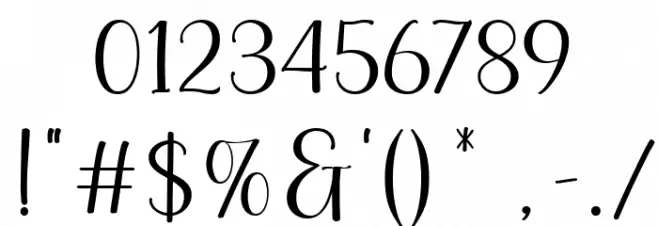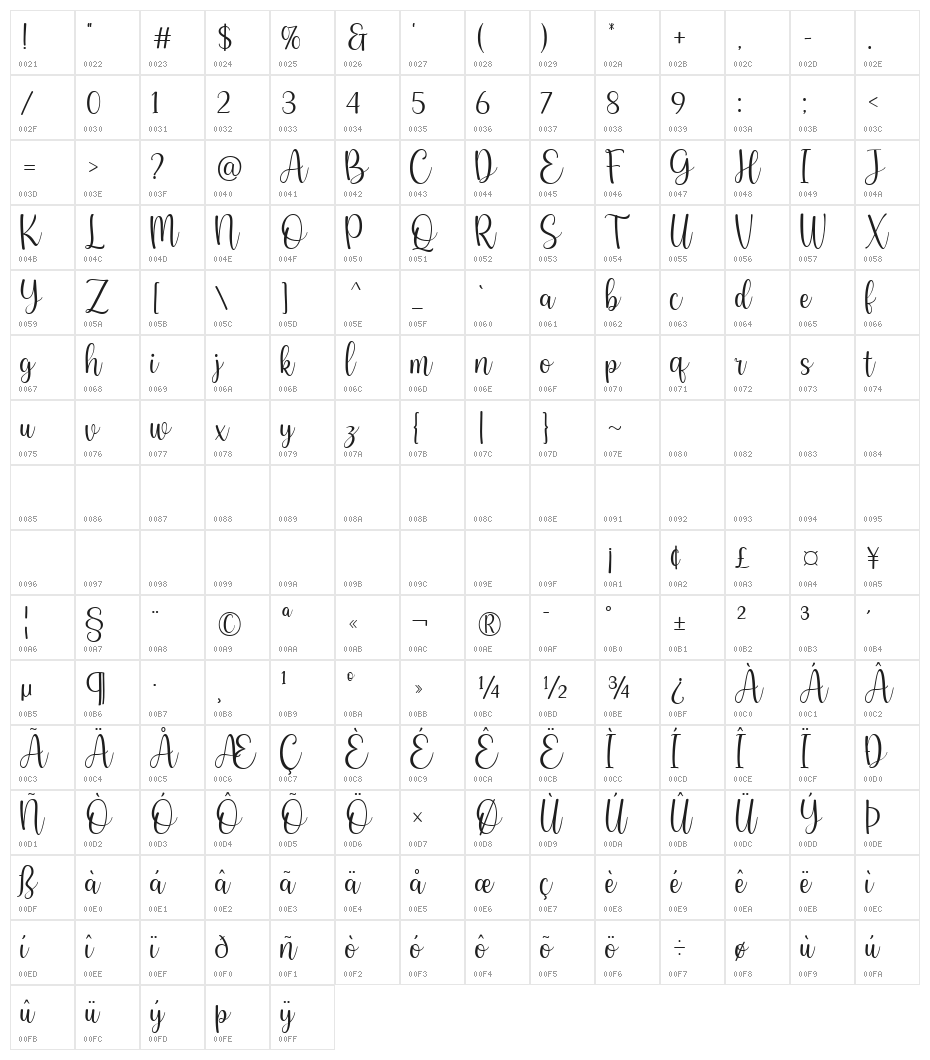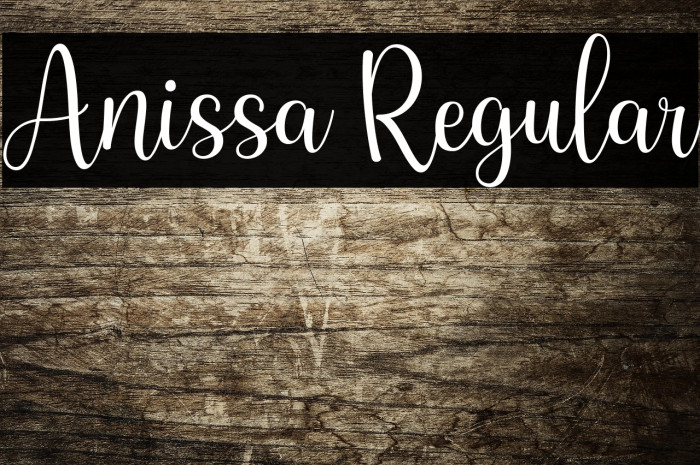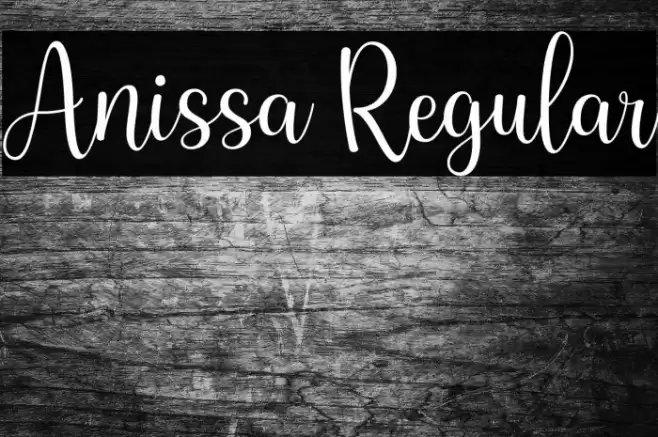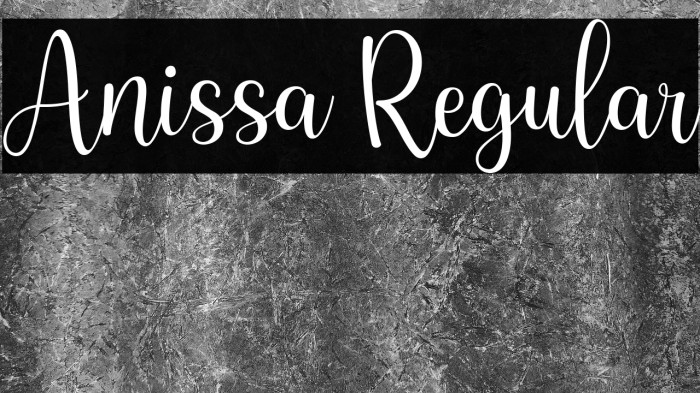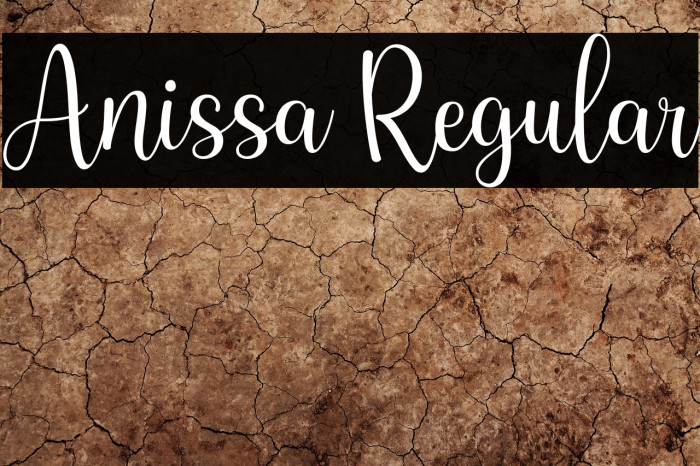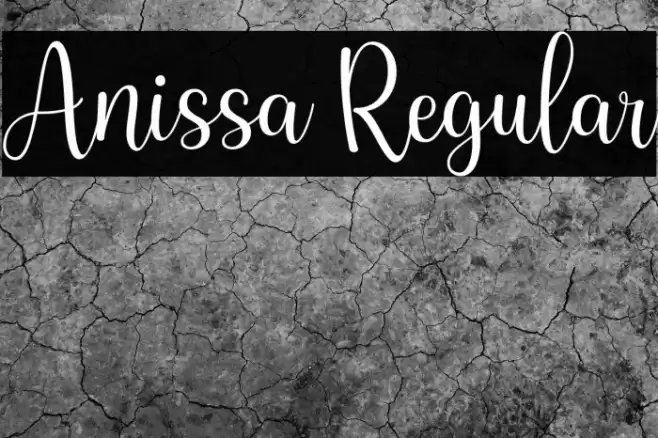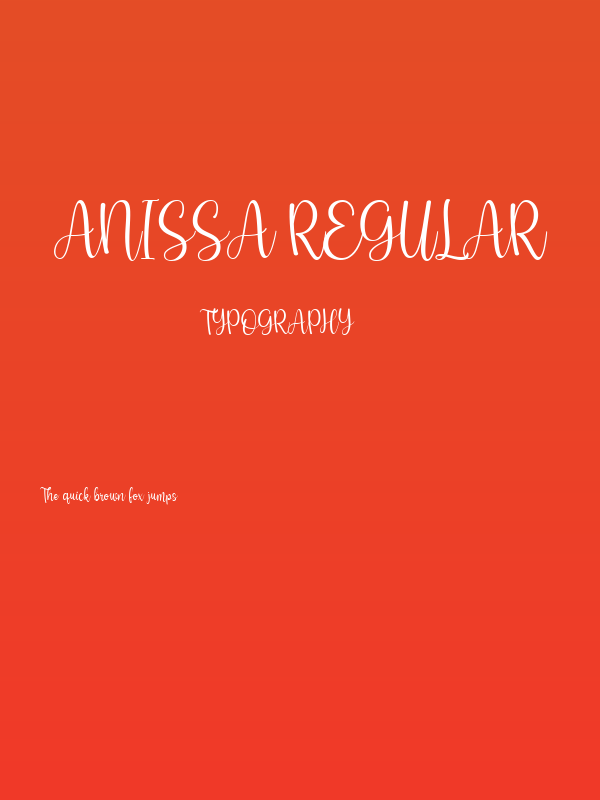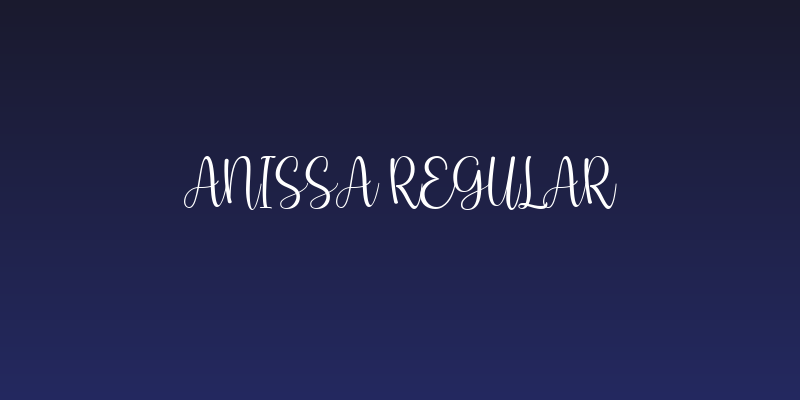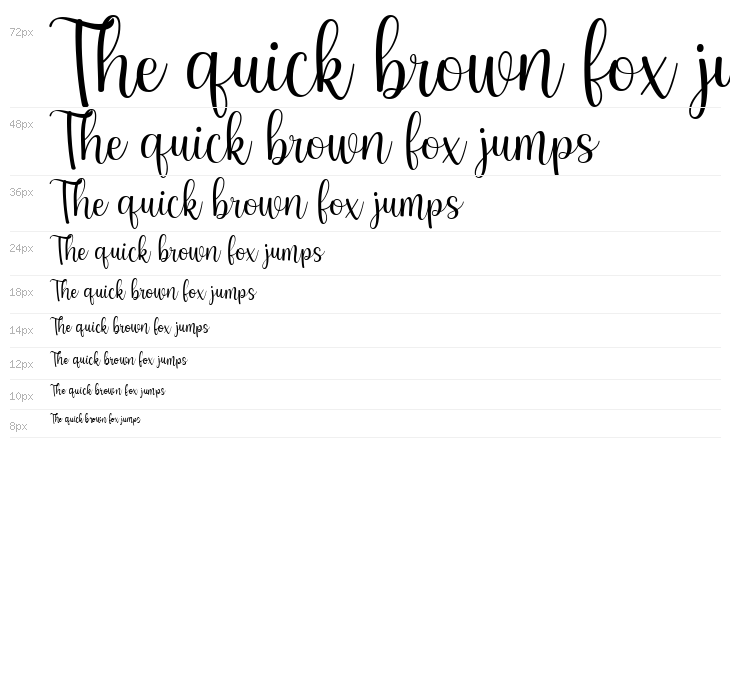
Anissa Regular Font
Anissa Regular Description
This font features a flowing, cursive style with elegant loops and swashes that give it a handwritten appearance. The uppercase letters are tall and graceful, while the lowercase letters maintain a consistent flow, enhancing readability. The numerals are clear and distinct, matching the overall aesthetic of the alphabet. Special characters are thoughtfully designed to complement the script style, making it versatile for various uses. The font's playful yet sophisticated look makes it suitable for creative projects that require a personal touch.
Use CaseLogos, Headlines, Invitations
Proposed ProjectsIdeal for wedding invitations, greeting cards, branding, and social media graphics.